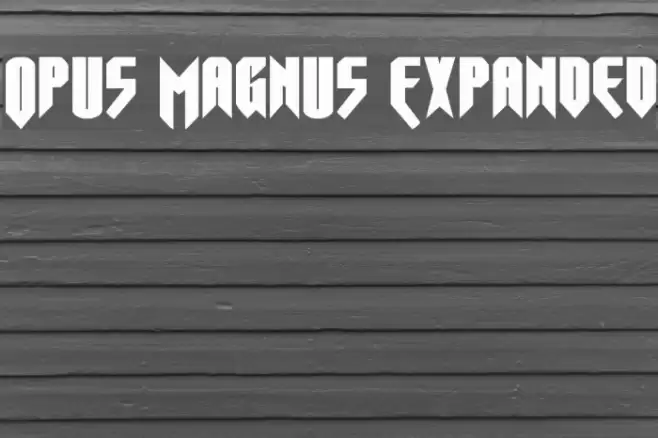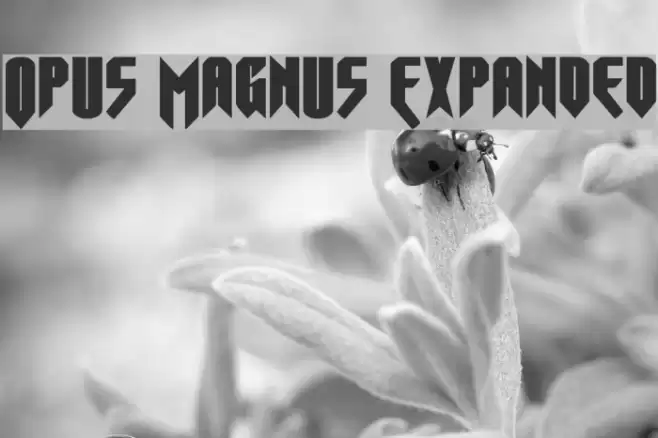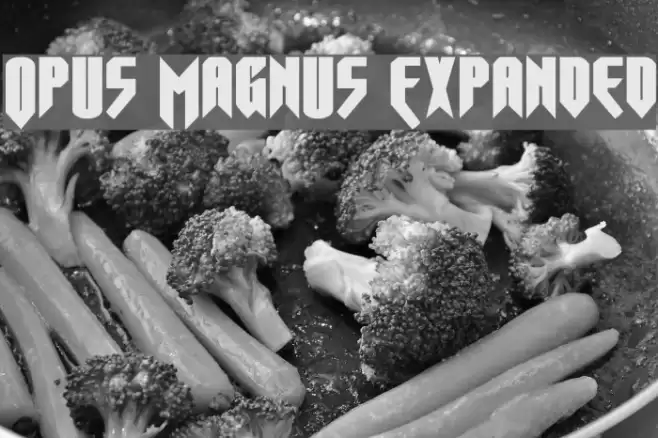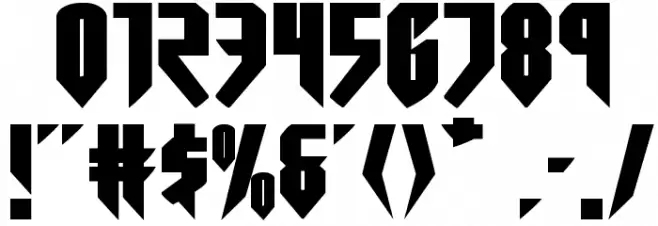
Opus Magnus Expanded Font
Opus Magnus Expanded Description
This font features a bold, geometric design with sharp angles and a strong presence. The characters are constructed with thick strokes and angular cuts, creating a dynamic and impactful appearance. The uppercase and lowercase letters maintain a consistent style, emphasizing a futuristic and industrial aesthetic. The numerals and special characters follow the same design principles, ensuring uniformity across the font. This typeface is ideal for projects that require a bold statement, offering a unique blend of modernity and strength.
A bold, geometric font with sharp angles and a futuristic aesthetic from Uncategorized fonts.
- Proposed Projects: Ideal for branding, posters, video game titles, and any project needing a strong, modern look.